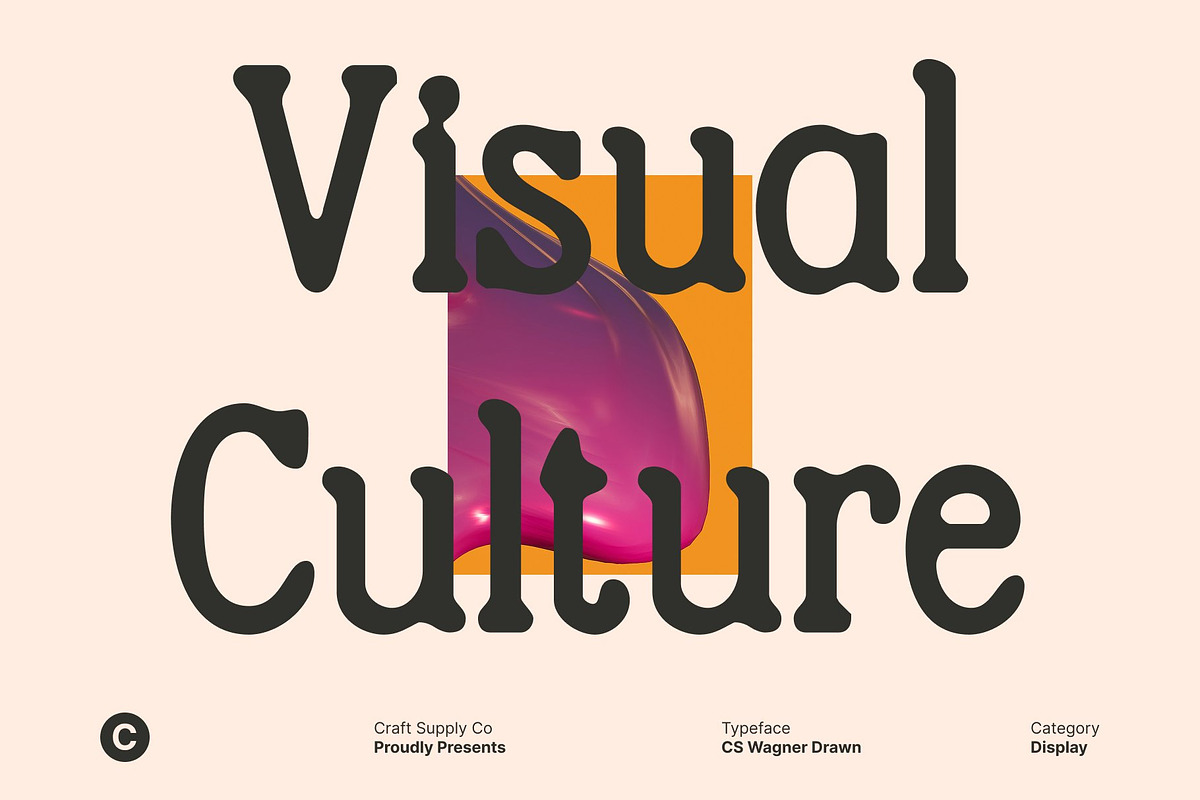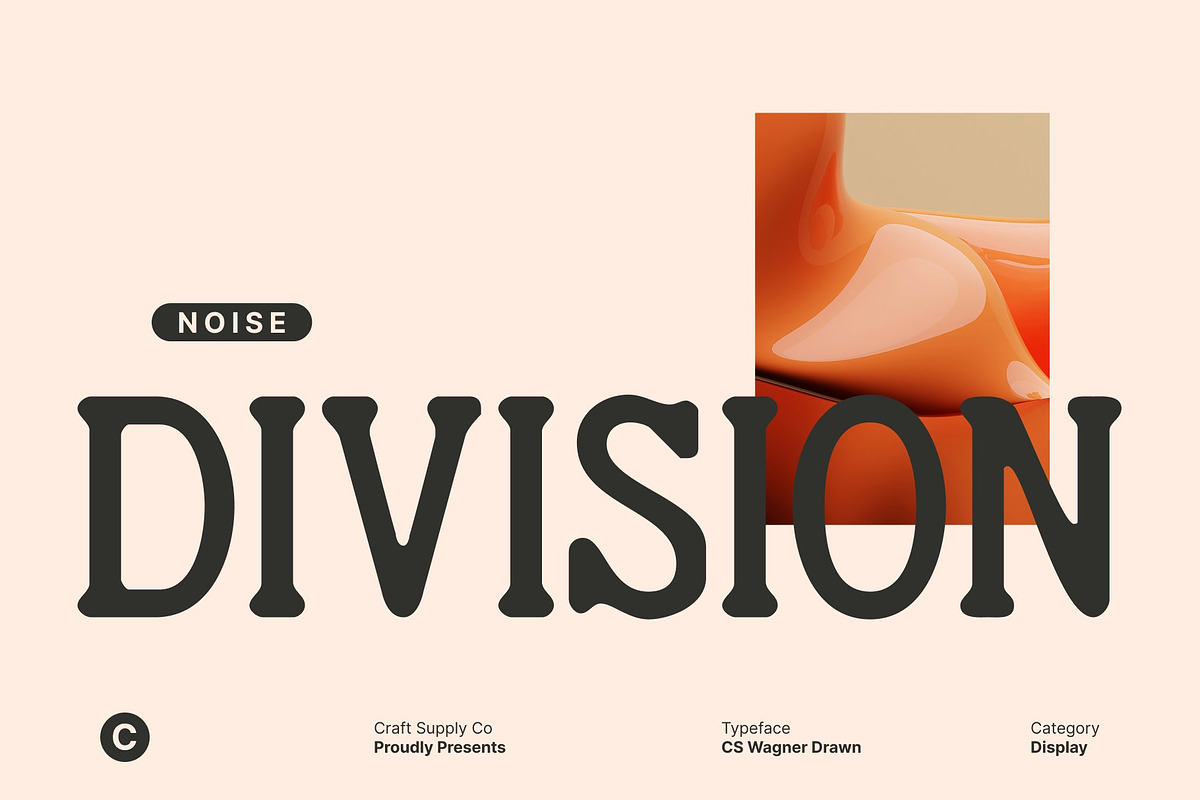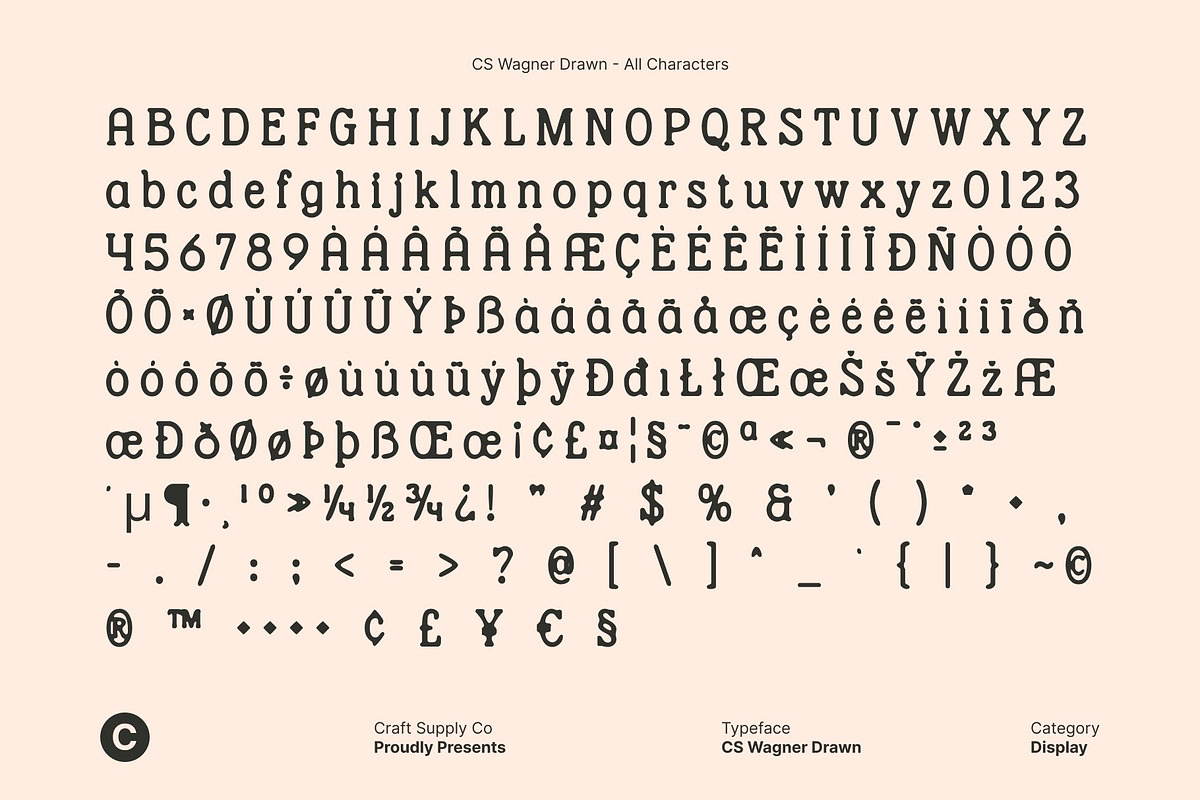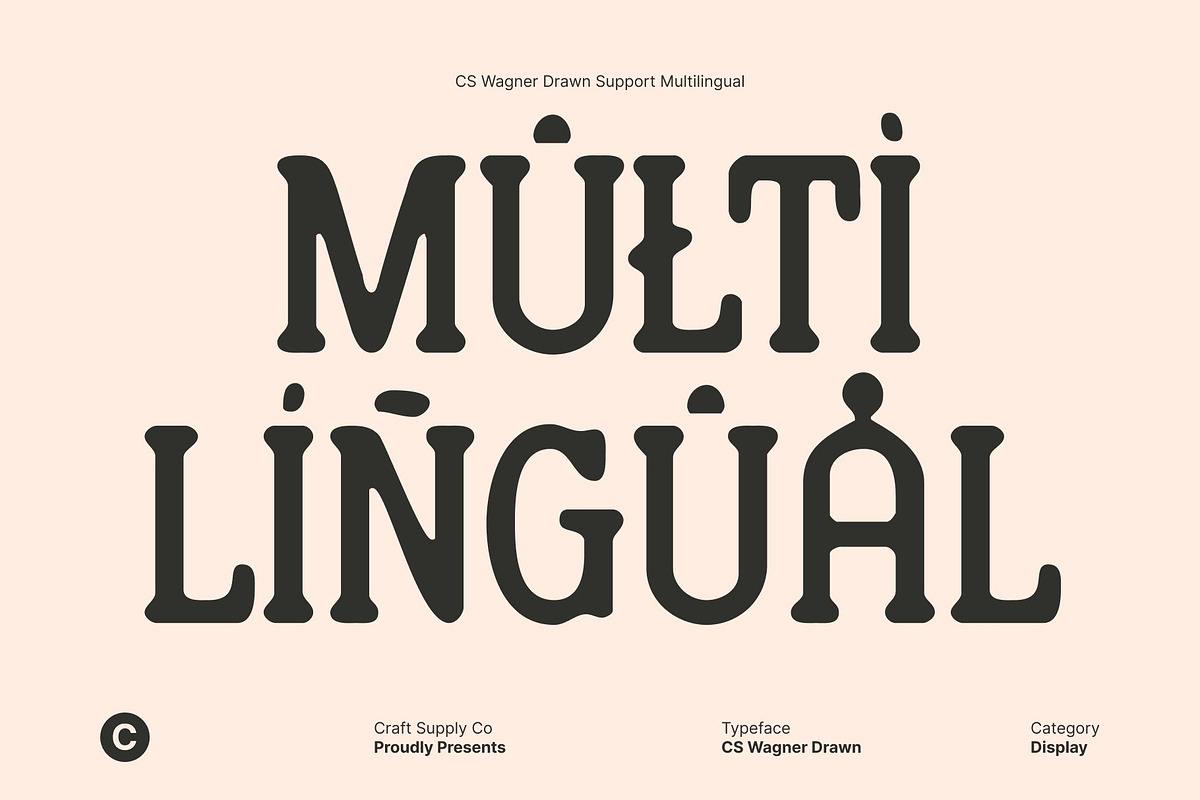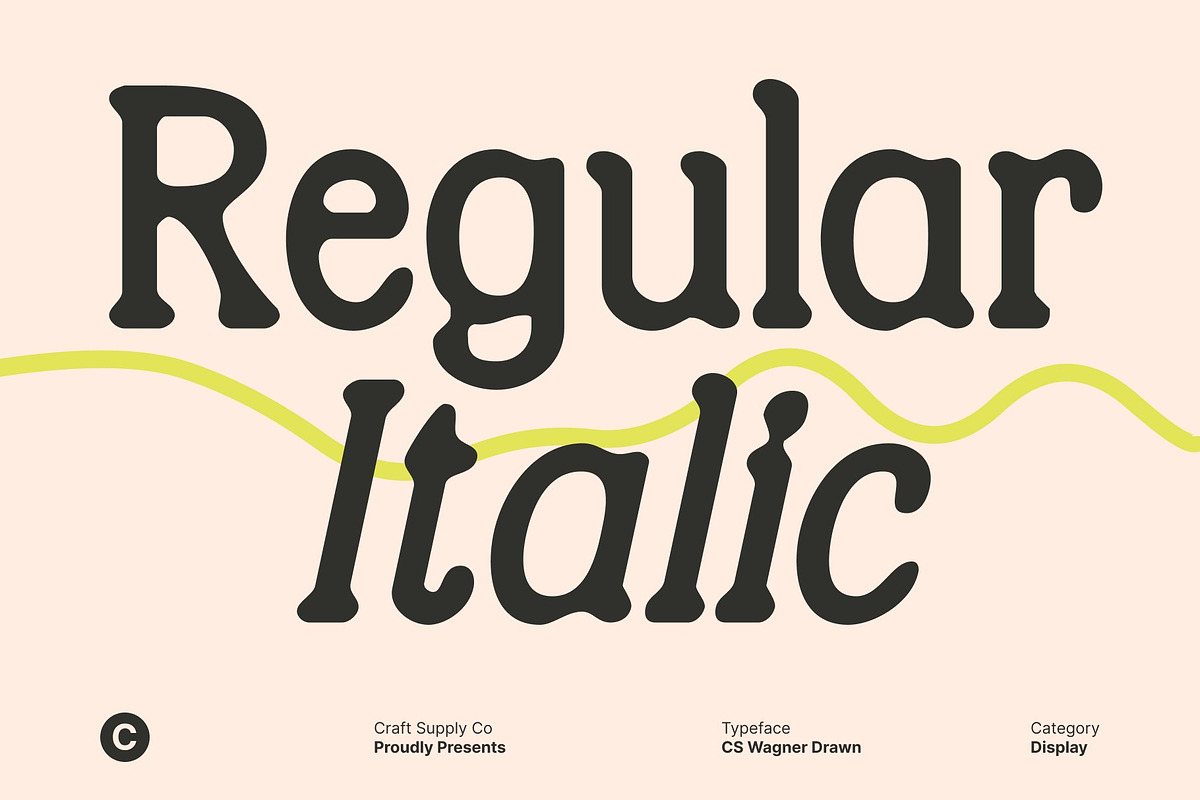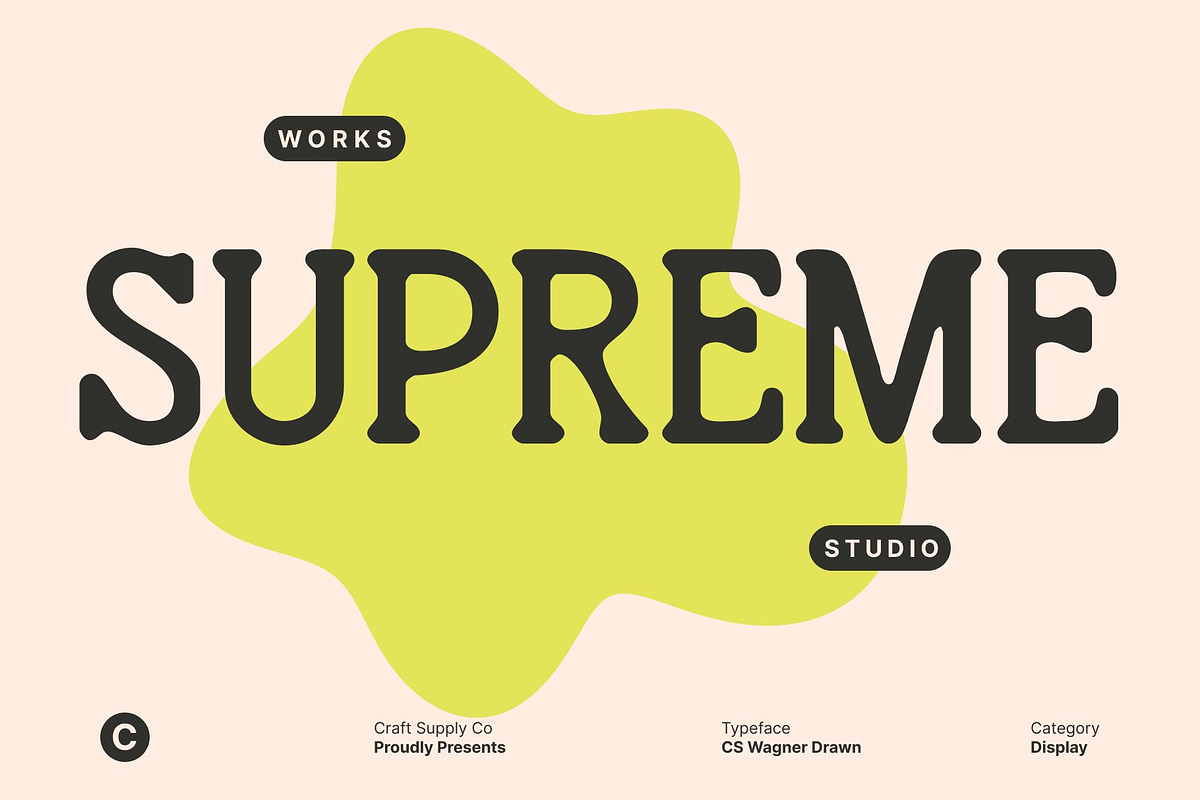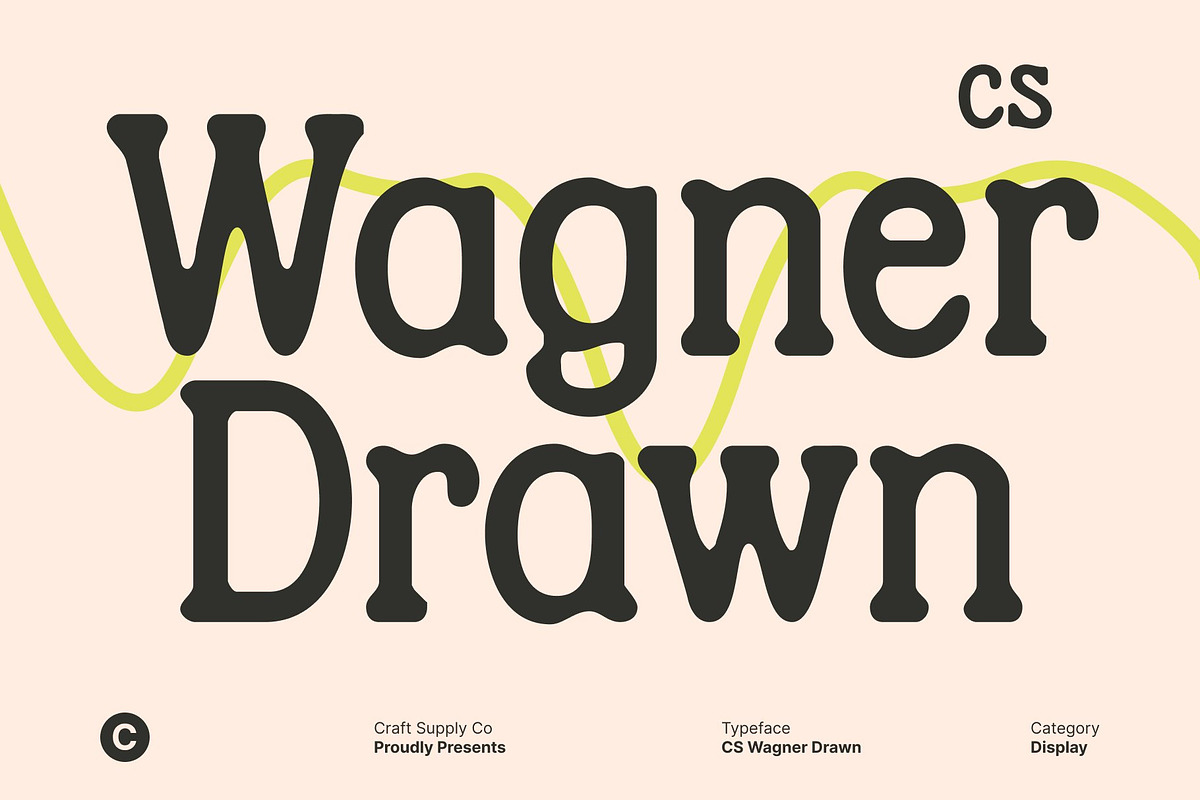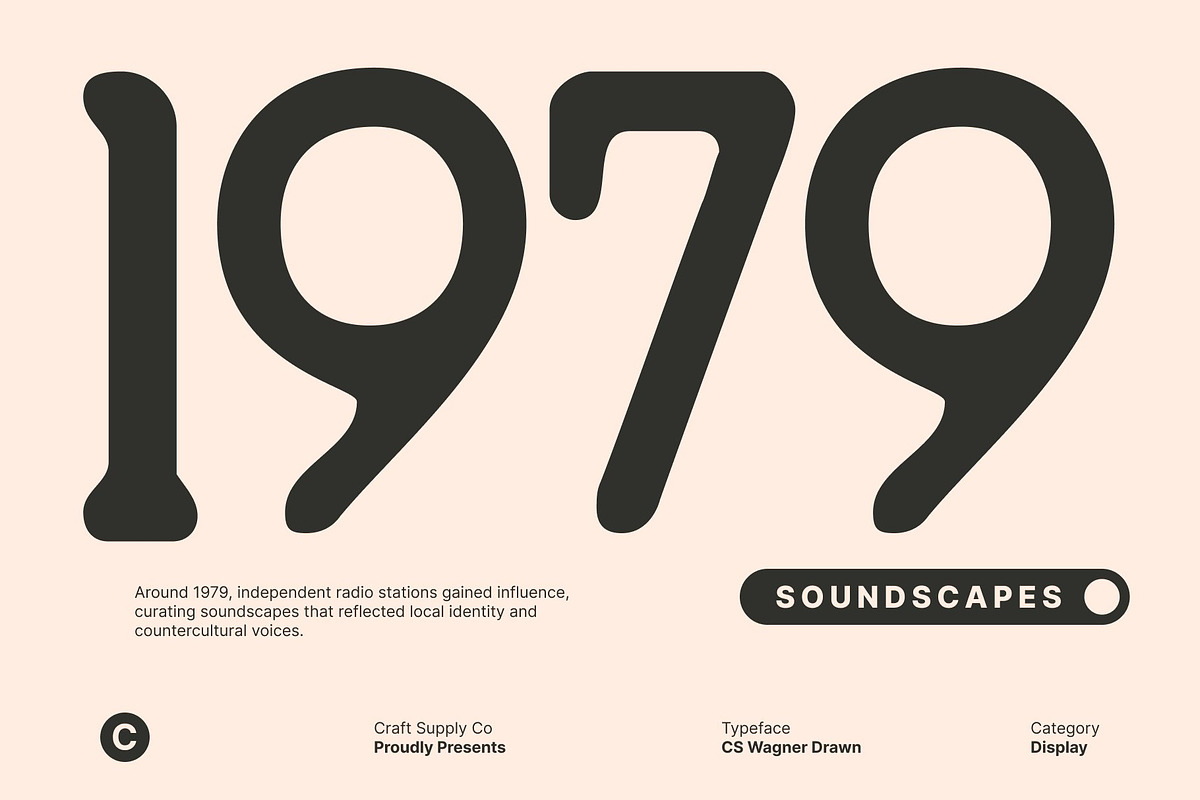
CS Wagner Drawn
CS Wagner Drawn – Modern Serif Font with Artistic Character
Modern Serif with Clean Lines and Soft Rounded Edges This is a modern serif font that combines clean construction with softly rounded edges, creating a refined and approachable appearance. Its well-balanced letterforms and smooth curves give the font a contemporary feel while maintaining a sense of structure and clarity.
Hand-Drawn Texture for Subtle Artistic Depth The drawn effect adds a handcrafted layer that brings warmth and personality to this font. Delicate textures and organic imperfections soften the precise serif structure, resulting in a font that feels more expressive and human. This artistic touch enhances its uniqueness, allowing designs to feel distinctive while still maintaining a professional and composed look.
Sophisticated and Versatile for Branding This font a works beautifully in luxury branding, corporate identities, and upscale visual systems. Its modern serif foundation communicates trust and professionalism, while the drawn texture introduces character and charm. This balance makes it ideal for premium brands, fashion labels, lifestyle products, and editorial branding that want to appear refined yet creative.
Timeless Elegance with a Contemporary Twist Blending classic serif principles with modern styling and artistic texture, offers a timeless aesthetic that adapts easily across print and digital media. From editorial layouts and advertising campaigns to packaging and logos, this font delivers elegance, readability, and personality ensuring your designs remain stylish, relevant, and visually engaging.